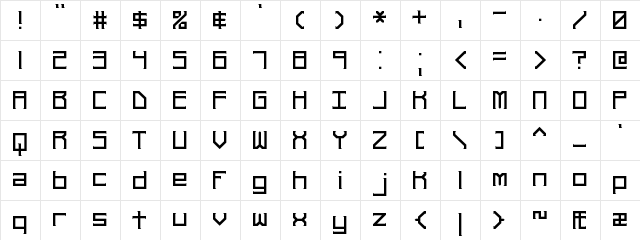
Complete Rehearsal Point BRK Normal glyph index. Displaying only characters natively supported by Rehearsal Point BRK Normal font.
Rehearsal Point BRK is a composed and adaptable typeface that performs quietly and consistently across a wide range of design contexts.